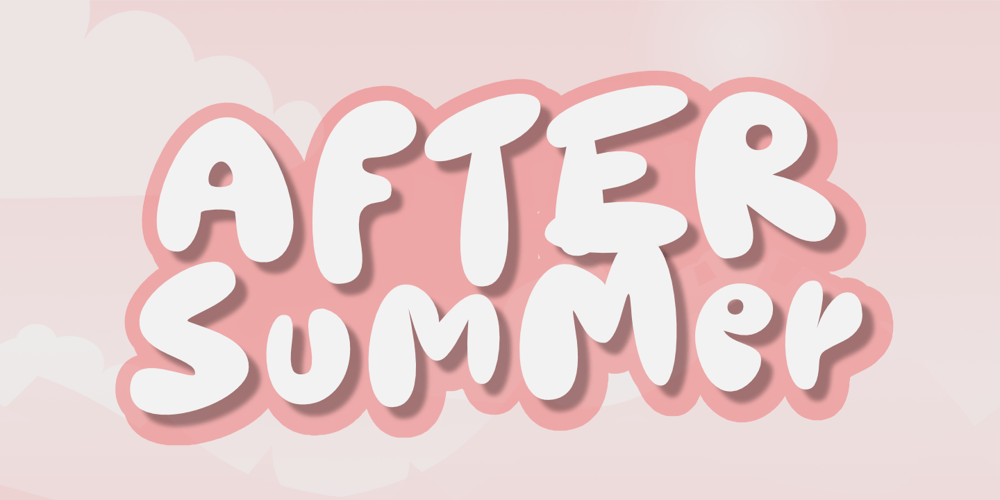
After Summer
After Summer font
After Summer Font Family was designed by Aldy Sidik and published by Epiclinez. After Summer contains 1 styles and family package options. Introducing After Summer a bold display font font to add a touch of cuteness and fun to your designs! With its playful vibe and stylish flair, After Summer brings an element of fun and whimsy that could capture the attention of anyone who sees it. Whether you’re designing a logo for your brand or creating eye-catching posters, After Summer could take your designs to the next level with its unique style.After Summer features : Standard Latin Numbers, symbols, and punctuations Multilingual Support. Fully accessible without additional design software Simple Installations Works on PC & Mac Thank You.